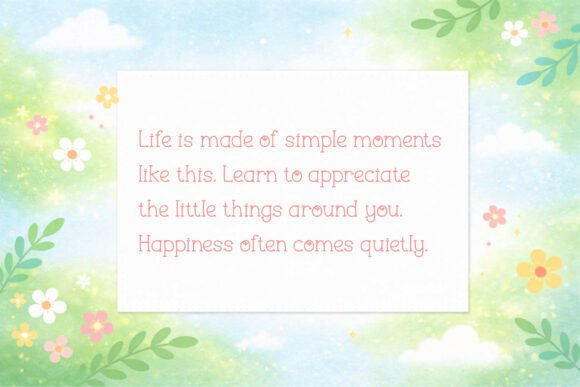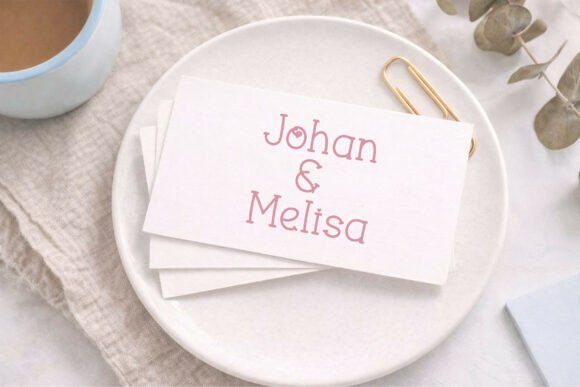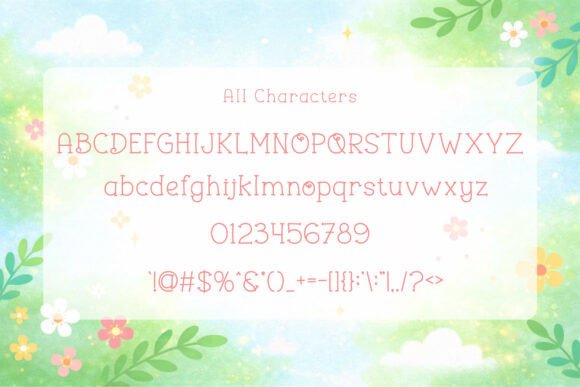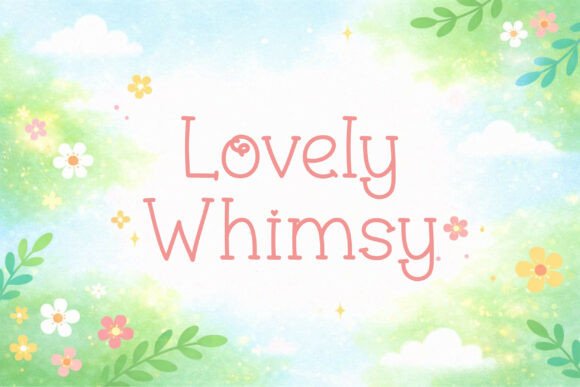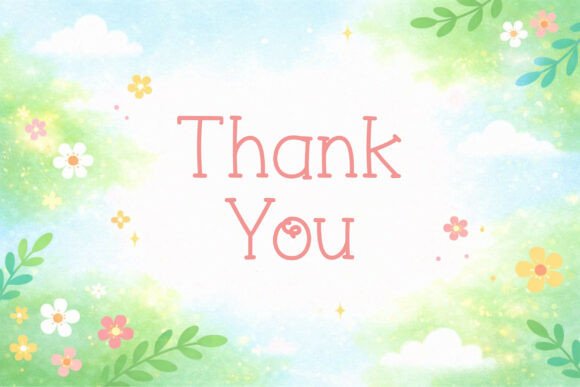
Dainty Hearts Font: Add a Touch of Whimsy to Your Designs
Are you looking for a font that can add a dash of cuteness and playfulness to your designs? Look no further than the Dainty Hearts Font! This charming handwritten font is perfect for creating a soft and friendly appearance in your designs, making it ideal for a wide range of projects.
What Makes Dainty Hearts Font So Special?
Dainty Hearts is a beautiful, handwritten font that boasts a light and playful personality. Its thin strokes and gentle curves create a delicate and charming appearance that is sure to capture the hearts of your audience. The font’s most distinctive feature, however, is its decorative heart accents, which add a touch of whimsy and romance to any design.
Dainty Hearts Font Sample
Dainty Hearts Font is an incredibly versatile font that can be used in a variety of design projects. Its charming and playful personality makes it perfect for:
• Greeting cards: Create beautiful and heartfelt greeting cards for special occasions like birthdays, weddings, and holidays.
• Kids projects: Add a touch of fun and playfulness to your kids’ projects, such as coloring pages, worksheets, and activity sheets.
• Planners and organizers: Use Dainty Hearts Font to create cute and functional planners, journals, and organizers.
• Stickers and labels: Design adorable stickers and labels for your craft projects, party favors, or gifts.
• Notebooks and journals: Create beautiful and inspiring notebooks and journals that are perfect for writing, drawing, or jotting down notes.
• Classroom materials: Use Dainty Hearts Font to create engaging and interactive classroom materials, such as posters, charts, and worksheets.
• Branding and social media: Add a touch of personality to your brand’s social media posts, flyers, and brochures.
• Crafting designs: Use Dainty Hearts Font to create beautiful and unique crafting designs, such as SVG files, iron-on designs, and paper crafts.
• Uppercase and lowercase letters
• Numbers and punctuation
• Decorative heart characters
• Easy-to-read handwritten style
Why Choose Dainty Hearts Font?
• Unique and charming personality: Dainty Hearts Font has a one-of-a-kind personality that will set your designs apart from the rest.
• Highly versatile: This font can be used in a wide range of design projects, from digital artwork to printables and crafting designs.
• Easy to read: Despite its decorative heart accents, Dainty Hearts Font remains easy to read and clean, making it perfect for body text and headings.
• Perfect for Cricut projects: Dainty Hearts Font is a great choice for Cricut projects, such as cutting files, iron-on designs, and paper crafts.